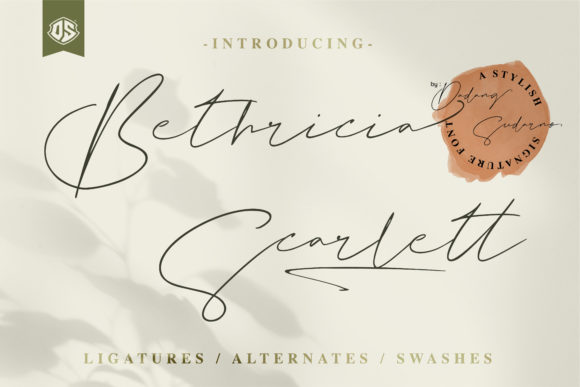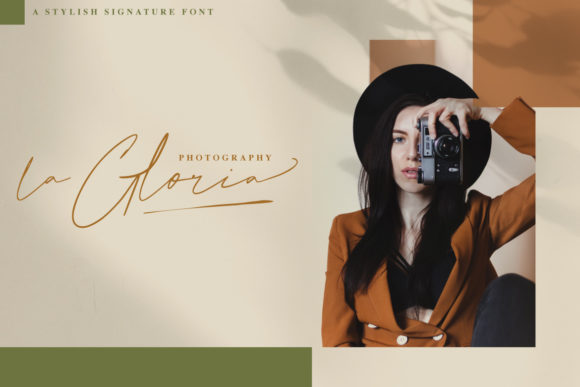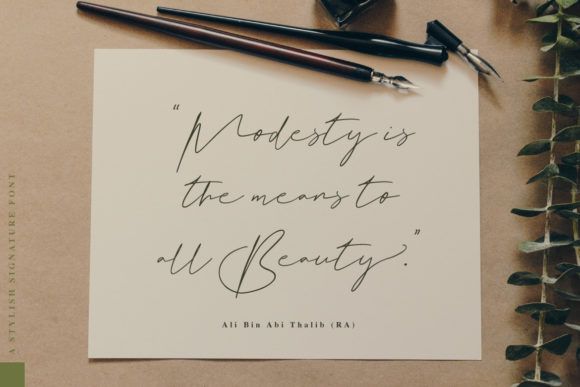
Bethricia Scarlett is a stunning and refined script font that embodies thinness, fashion, and elegance. With its delicate letterforms and stylish curves, this font brings a touch of sophistication to any design project.
One of the standout features of Bethricia Scarlett is its PUA encoding, which allows easy access to all of the unique glyphs and swashes. This gives you the freedom to create personalized and custom designs, whether you’re working on wedding invitations, thank you cards, greeting cards, logos, or any other project that requires a distinctive and elegant touch.
The thin and fashionable nature of Bethricia Scarlett makes it a perfect choice for adding a refined and upscale look to your designs. Its graceful letterforms and elegant strokes create a sense of sophistication and charm, making it ideal for high-end events and luxury branding.
From weddings to special occasions, Bethricia Scarlett can elevate your designs with its personalized style. Its versatility allows it to shine on a wide range of projects, giving you the freedom to explore and create beautiful and memorable designs.
Embrace the beauty and elegance of Bethricia Scarlett as you infuse your designs with a touch of refinement and style. Let this font be your go-to choice for wedding invitations, thank you cards, logos, and any other project where you want to make a lasting impression.